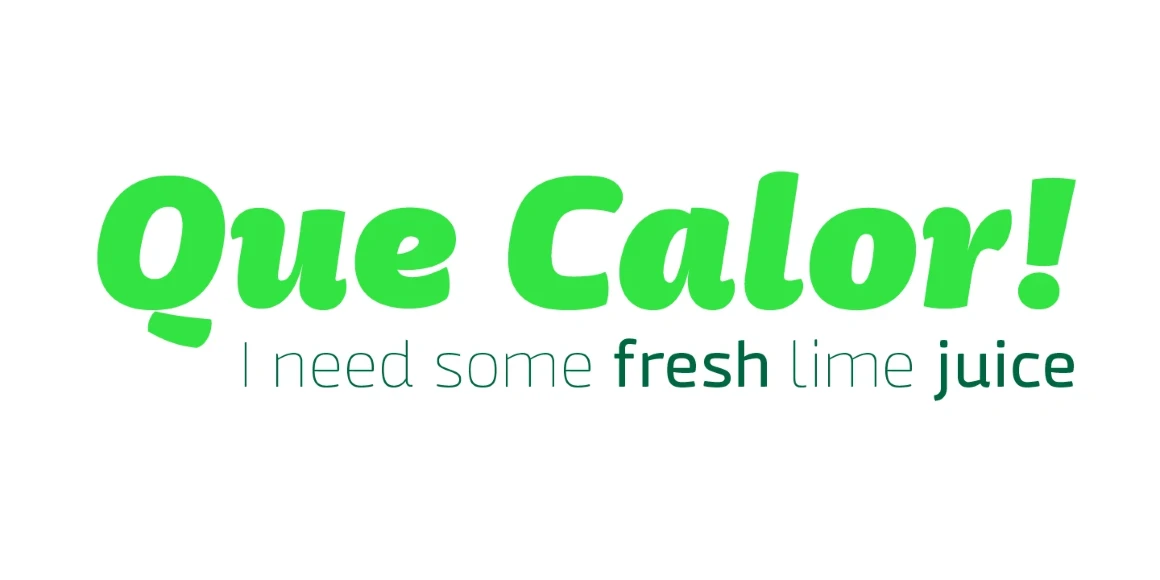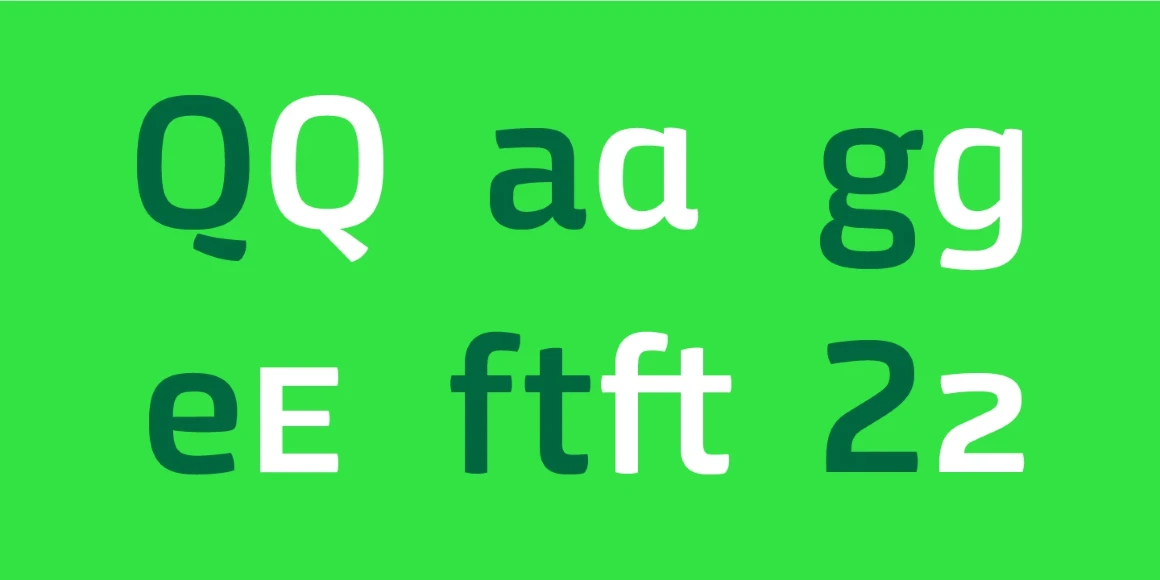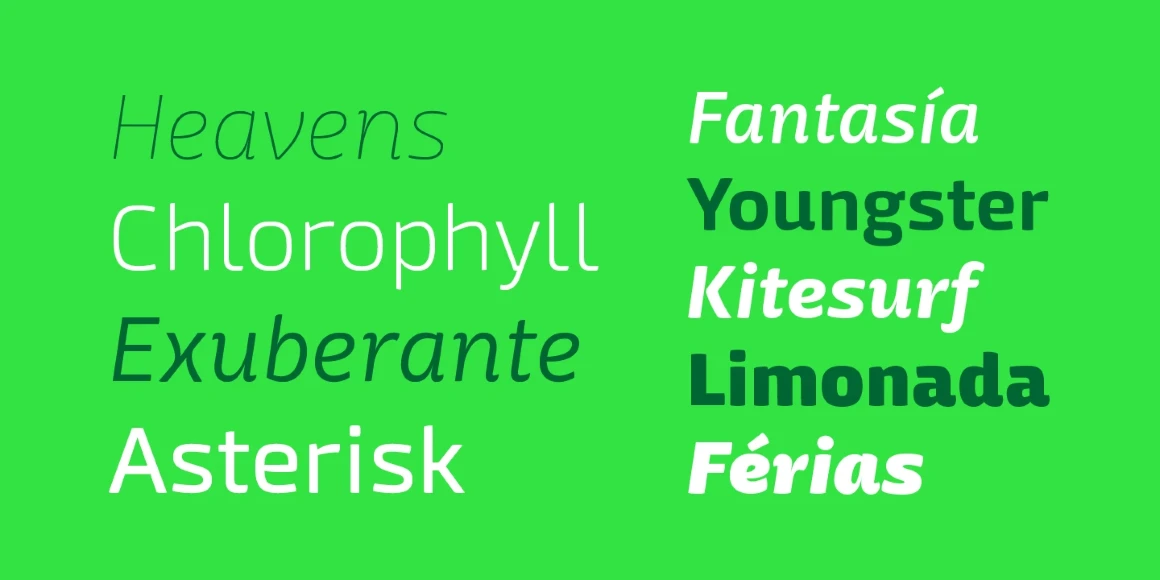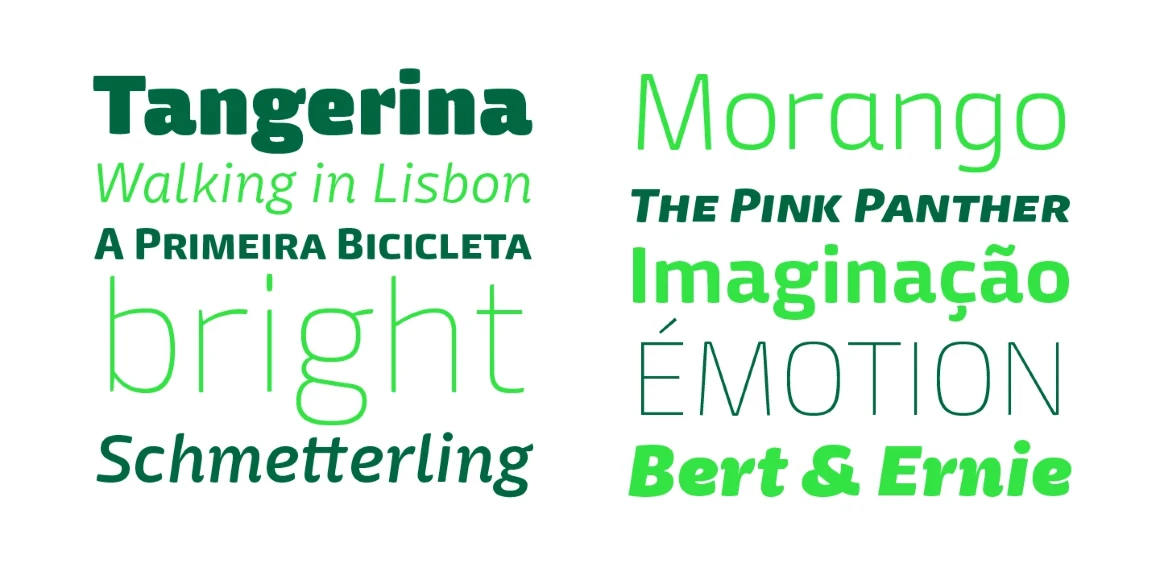
Mangerica
By Natanael Gama
This design incorporates different styles into a consistent look. A pinch of script, a little of geometric and some humanistic shapes as well create a very distinguishable sans-serif. It has an overall good feeling specially on the heavier weights that have intended contrast irregularities to create a ‘cartoonish’ look. On the intermediate weights the design will preform well on small font sizes because of its large counters, low contrast and large x-height, but as you go to the extremes you will see shapes full of personality that will pop out in large font sizes. The font is loaded with opentype features such as small caps, ligatures, alternates, old style figures, and much more.